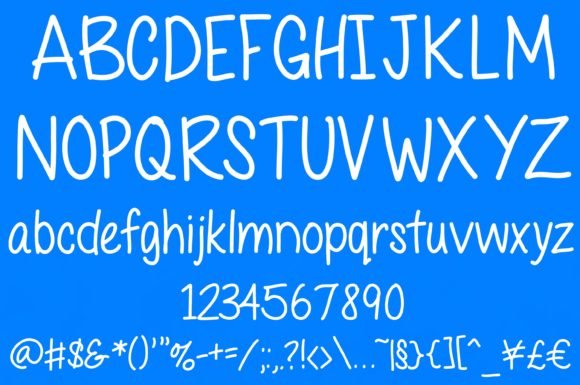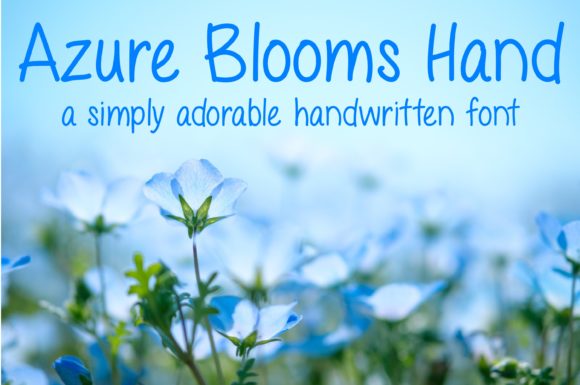
Introducing Azure Blooms Hand Font: The Perfect Addition to Your Design Projects
Are you tired of using the same old fonts in your design projects? Look no further than Azure Blooms Hand Font, a delightfully cheerful and simple handwritten font that’s sure to add an authentic feel to any design. In this article, we’ll take a closer look at Azure Blooms Hand Font, its features, and how you can use it to elevate your design projects.
What is Azure Blooms Hand Font?
Azure Blooms Hand Font is a modern, handwritten font that’s perfect for designers and crafters looking for a unique and playful touch. This font is designed to mimic the look and feel of handwritten text, with a cheerful and carefree vibe that’s sure to capture the attention of your audience.
Key Features of Azure Blooms Hand Font
• Delightfully Cheerful: Azure Blooms Hand Font is designed to bring a smile to your audience’s face. Its playful and upbeat vibe makes it perfect for designs that require a friendly and approachable tone.
• Simple and Elegant: Despite its playful nature, Azure Blooms Hand Font is surprisingly elegant and simple. Its clean lines and minimal ornamentation make it easy to read and versatile enough to use in a variety of design projects.
• Handwritten Feel: Azure Blooms Hand Font has a genuine handwritten feel that’s sure to add a personal touch to your designs. Its imperfections and quirks make it feel more human and less like a traditional font.
• Authentic: Azure Blooms Hand Font is designed to look and feel authentic. Its unique character and charm make it perfect for designers and crafters looking to add a touch of personality to their work.
How to Use Azure Blooms Hand Font in Your Design Projects
Azure Blooms Hand Font is incredibly versatile and can be used in a variety of design projects, from digital designs to print materials. Here are a few ideas to get you started:
• Social Media Graphics: Use Azure Blooms Hand Font to add a playful touch to your social media graphics, such as Instagram posts, Facebook updates, and Twitter headers.
• Branding and Packaging: Azure Blooms Hand Font is perfect for branding and packaging designs that require a friendly and approachable tone.
• Invitations and Stationery: Add a personal touch to your invitations and stationery with Azure Blooms Hand Font.
• Blog and Website Design: Use Azure Blooms Hand Font to add a unique and playful touch to your blog or website design.
Tips for Getting the Most Out of Azure Blooms Hand Font
Here are a few tips for getting the most out of Azure Blooms Hand Font:
• Experiment with Colors: Azure Blooms Hand Font looks great in a variety of colors, so don’t be afraid to experiment and find the perfect hue for your design.
• Mix and Match: Combine Azure Blooms Hand Font with other fonts to create a unique and visually appealing design.
• Play with Size: Azure Blooms Hand Font looks great in a variety of sizes, from small and delicate to large and bold.
Azure Blooms Hand Font is a delightful and cheerful font that’s perfect for designers and crafters looking to add a unique and playful touch to their design projects. Its simple and elegant design, combined with its handwritten feel and authentic vibe, make it a versatile font that can be used in a variety of applications. Whether you’re designing social media graphics, branding and packaging, or invitations and stationery, Azure Blooms Hand Font is sure to bring a smile to your audience’s face.